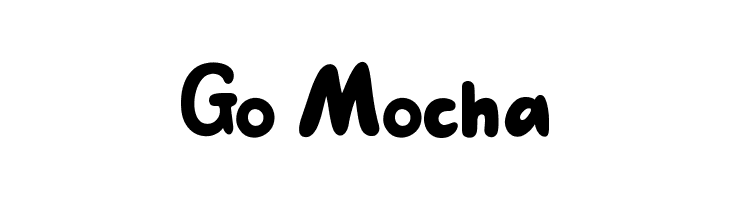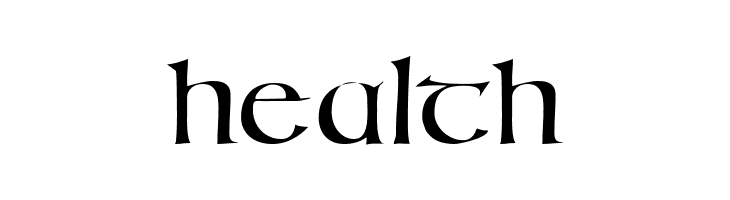
A futuristic, pixelated font composed of small square dots forming each character.
A playful and bold font with whimsical curves and dynamic strokes.
A bold, angular, and futuristic font with a geometric style.
A bold serif font with barbed wire detailing for a rugged, edgy look.
A bold, angular, and extra-expanded font with a modern and commanding presence.
A bold, flowing script font with a handwritten, calligraphic style.
A futuristic, geometric font with rounded edges and hollow spaces.
An elegant italic serif font with smooth curves and a classic yet modern appeal.
A playful, casual handwritten font with smooth, flowing strokes.
Playful, bold handwritten font.
A bold, hollow, geometric font with a three-dimensional outline effect.
A whimsical, decorative font with playful curves and irregular strokes.
A bold, playful font with geometric and whimsical design elements.
A playful, bold font with a hand-drawn, artistic style.
A bold, rounded font with a playful and whimsical style.
A playful, sketchy font with a hand-drawn, doodle-like style.
A playful, decorative font with leaf-like embellishments inside bold, rounded characters.
A bold, expanded italic font with a modern, dynamic style.
A playful, hand-drawn font with bold outlines and quirky shapes.
A bold, hand-drawn font with textured, expressive strokes.
A bold, decorative font with a playful polka dot pattern.
A playful, handwritten font with a quirky, rounded style.
A bold, cursive font with a lively, handwritten style.
A bold, robust font ideal for impactful and commanding designs.